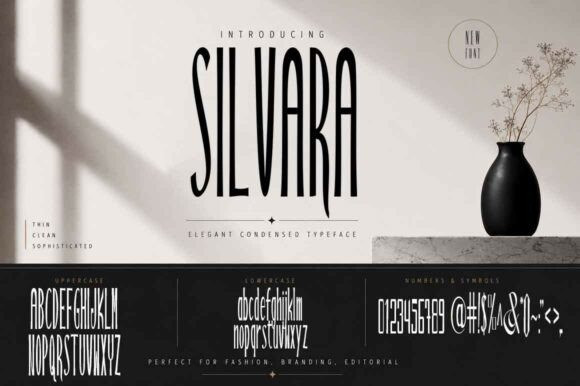
Silvara Font is a stylish, bold and unique display font. It is suitable for any branding, product packaging, invitation, quote, t-shirt, label, poster, logo that you wish to develop.
Silvara is a stylish, bold and unique display font. It is suitable for any branding, product packaging, invitation, quote, t-shirt, label, poster, logo that you wish to develop.